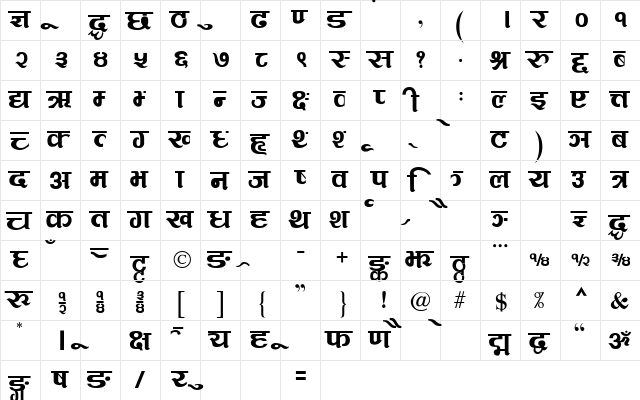
Suryodaya Regular
Design Context for Suryodaya Typeface
Suryodaya is a composed and adaptable typeface that performs quietly and consistently across a wide range of design contexts.